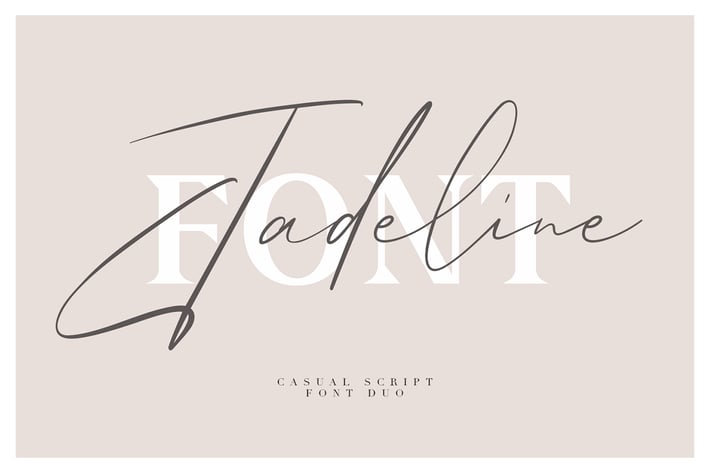
Jadeline Script - Free Serif Font
I called it “Jadeline” this is awesome style of script with signature styles.
I hope there will be more ligatures but it will take a times, anyway this is should be awesome font!
Give your designs an authentic handcrafted feel. "Jadeline Script - Free Serif Font" is perfectly suited to signature, stationery, logo, typography quotes, magazine or book cover, website header, clothing, branding, packaging design and more.